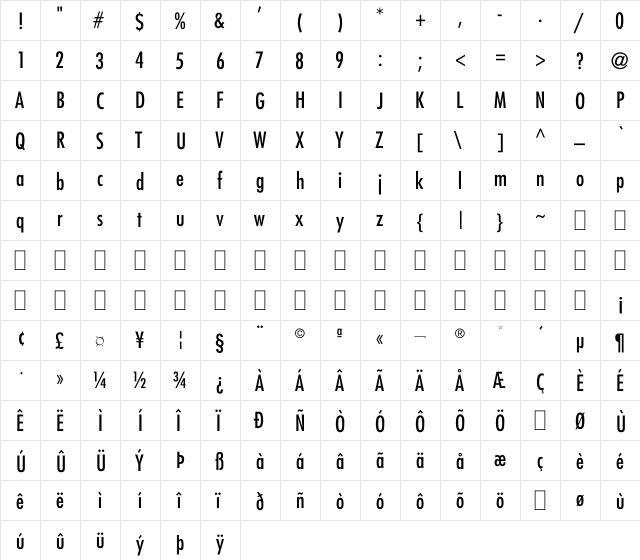
BD Norway Regular
Design Context for BD Norway Typeface
BD Norway is a composed and adaptable typeface that performs quietly and consistently across a wide range of design contexts. The heavy weight commands attention and anchors typographic hierarchies.